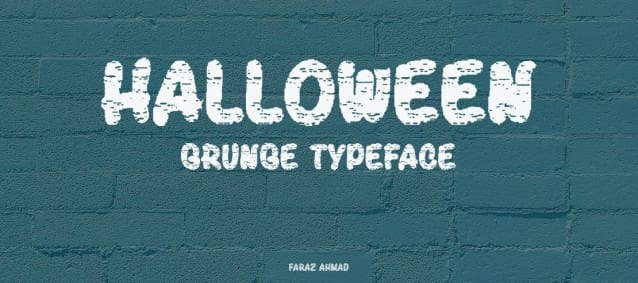
Halloween Grunge Font
Halloween Grunge Font has been released for those who are looking for creepy cartoon Halloween fonts and regular fonts, This font is inspired by classic horror movie font styles with some combinations to give them a little bit of a Creepy Halloween style. Perfect for use on social media, posters, stickers, school projects and more.